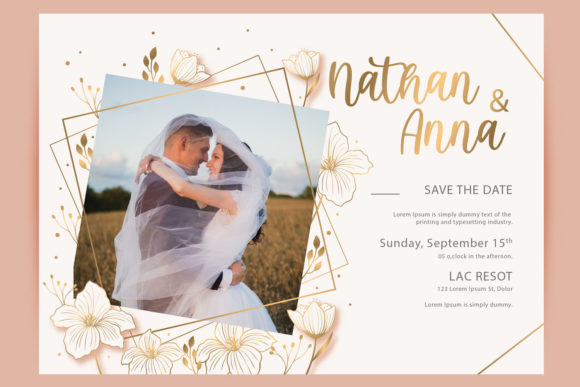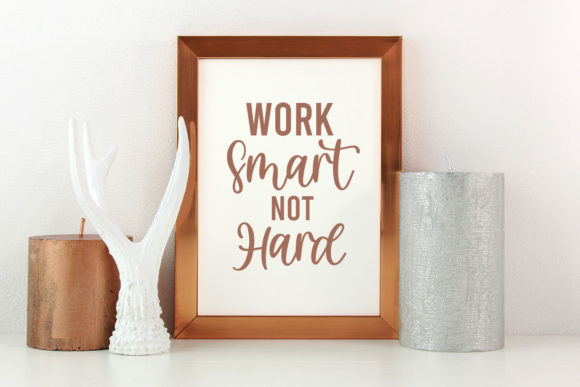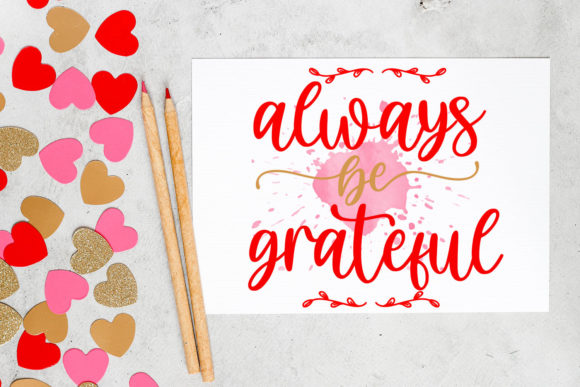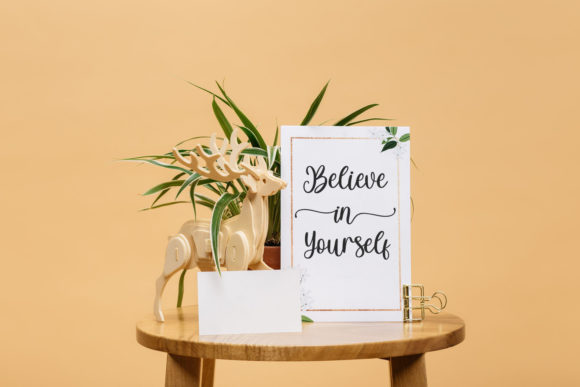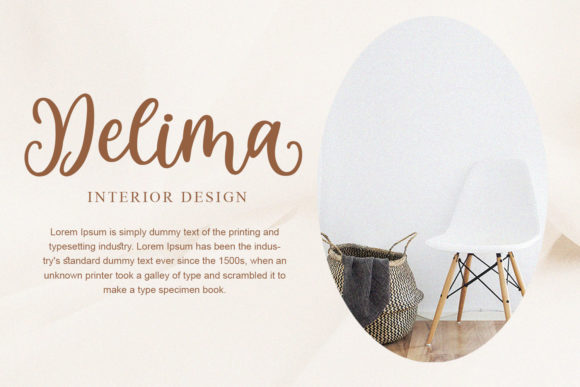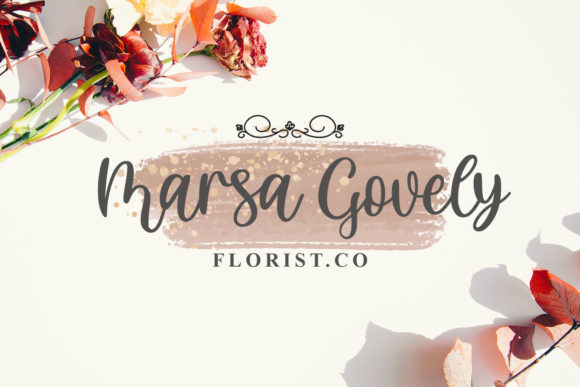
BetterLove Font: Elevate Your Designs with Elegance and Class
In the world of typography, a font can make or break the aesthetic of a design. For crafters, designers, and artists, finding the perfect font that embodies elegance and sophistication can be a daunting task. However, if you’re looking for a lovely and delicate script font that exudes refinement, look no further than BetterLove Font. In this article, we’ll dive into the features, benefits, and uses of BetterLove Font, and explore how it can elevate your designs to new heights.
What is BetterLove Font?
BetterLove Font is a beautiful script font that is specifically designed for those who need a refreshing and elegant look for their designs. With its delicate strokes and refined lines, BetterLove Font is perfect for creating stunning visual content that captures the essence of sophistication. Whether you’re working on a branding project, crafting a logo, or designing a social media graphic, BetterLove Font is an excellent choice.
Key Features of BetterLove Font
- PUA Encoded: BetterLove Font is PUA (Private Use Area) encoded, which means that you can access all glyphs and swashes with ease. This feature allows you to unlock the full potential of the font and experiment with various design elements.
- Elegant and Delicate: BetterLove Font boasts a lovely and delicate script style that exudes elegance and class. Its refined lines and strokes make it perfect for creating sophisticated designs.
- Versatile: BetterLove Font is a versatile font that can be used for a wide range of design projects, from logos and branding to social media graphics and crafts.
Benefits of Using BetterLove Font
So, why should you choose BetterLove Font for your design projects? Here are just a few benefits of using this lovely font:
- Instant Elegance: With BetterLove Font, you can instantly add a touch of elegance and sophistication to your designs. Its refined lines and delicate strokes make it perfect for creating high-end visual content.
- Easy to Use: BetterLove Font is PUA encoded, which means that you can easily access all glyphs and swashes. This feature makes it easy to experiment with different design elements and create unique visual content.
- Time-Saving: With BetterLove Font, you can save time and effort in creating stunning designs. Its versatile nature and ease of use make it an excellent choice for designers and crafters who need to work efficiently.
Use Cases for BetterLove Font
BetterLove Font is a versatile font that can be used for a wide range of design projects. Here are just a few use cases for this lovely font:
- Branding and Logos: BetterLove Font is perfect for creating elegant and sophisticated logos and branding materials.
- Social Media Graphics: With BetterLove Font, you can create stunning social media graphics that capture the essence of refinement and elegance.
- Crafts and DIY Projects: BetterLove Font is an excellent choice for crafters and DIY enthusiasts who need a beautiful and delicate font for their projects.
In conclusion, BetterLove Font is a lovely and delicate script font that exudes elegance and class. Its PUA encoded feature, elegant design, and versatility make it an excellent choice for designers, crafters, and artists who need a beautiful and refreshing look for their designs. Whether you’re working on a branding project, crafting a logo, or designing a social media graphic, BetterLove Font is sure to elevate your designs to new heights.